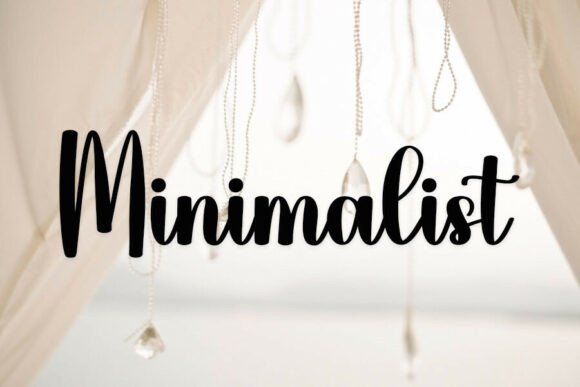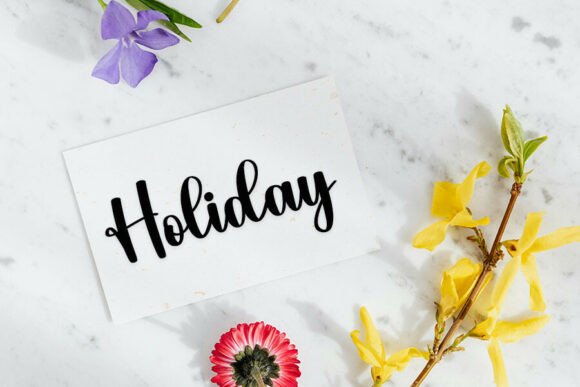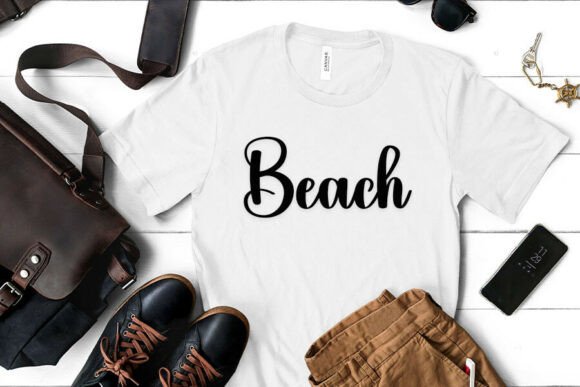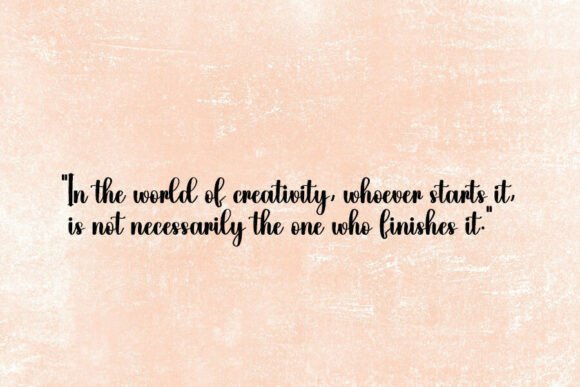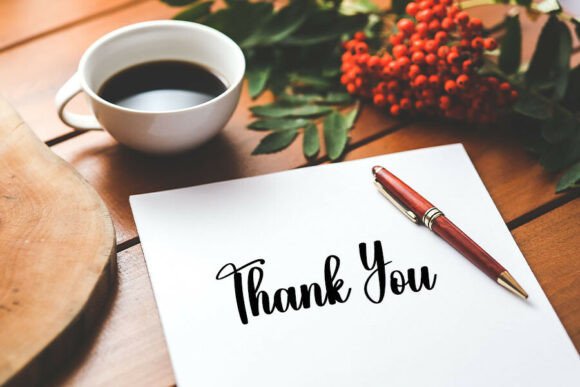
Unleash the Mystery: Haunted House Font for Atmospheric Storytelling
Are you a designer, crafty entrepreneur, or storyteller looking for a typeface that embodies the essence of mystery and elegance? Look no further than Haunted House, a modern calligraphy font that will transport your brand, book covers, or event stationery to a world of atmospheric storytelling. This stunning font is designed to evoke a sense of moody sophistication, perfect for those who crave a touch of the unknown.
The Art of Atmospheric Storytelling
Atmospheric storytelling is an art form that relies heavily on evoking emotions and conjuring a specific ambiance. Haunted House font is the perfect tool to help you achieve this. Its tall, rhythmic strokes and organic, hand-inked texture create a sense of fluidity and movement, drawing the reader in and refusing to let go. Whether you’re crafting a brand identity, book cover, or social media header, this font will add a touch of mystique and allure.
Design Features of Haunted House Font
So, what makes Haunted House font so unique? Here are some of its standout design features:
• Tall, rhythmic strokes: Haunted House font boasts elegant, elongated strokes that dance across the page, creating a sense of movement and energy.
• Organic, hand-inked texture: The font’s texture is reminiscent of hand-inked calligraphy, adding a touch of warmth and humanity to your designs.
• Flowing connectors: The connectors between letters are smooth and fluid, creating a sense of continuity and flow.
• Dark-cottagecore soul: Haunted House font has a distinctly “dark-cottagecore” feel, perfect for those who love the mystery and intrigue of the unknown.
Perfect for Moody and Elegant Designs
Haunted House font is the perfect choice for designers and crafters who want to create moody and elegant designs. Here are some of the ideal applications for this stunning font:
• Artisanal apothecary branding: Create a brand identity that exudes sophistication and mystery with Haunted House font.
• Independent book cover titles: Add a touch of atmospheric storytelling to your book covers with this stunning font.
• Sophisticated Halloween event stationery: Create invitations, posters, and other event materials that will leave a lasting impression with Haunted House font.
• Cinematic social media headers: Elevate your social media presence with a font that screams elegance and mystery.
Why Choose Haunted House Font?
With so many fonts available, why choose Haunted House? Here are just a few reasons:
• Unique and distinctive: Haunted House font is unlike any other font on the market, offering a unique and distinctive look that will set you apart.
• Versatile: This font can be used for a wide range of applications, from branding and book covers to event stationery and social media headers.
• Elegant and moody: Haunted House font embodies the perfect balance of elegance and mystery, making it perfect for designers and crafters who want to create atmospheric storytelling.
Get Ready to Unleash the Mystery
Are you ready to add a touch of moody elegance to your designs? Look no further than Haunted House font. With its stunning design features, versatility, and unique character, this font is sure to become your go-to for atmospheric storytelling. So, why wait? Unleash the mystery and get ready to captivate your audience with Haunted House font.